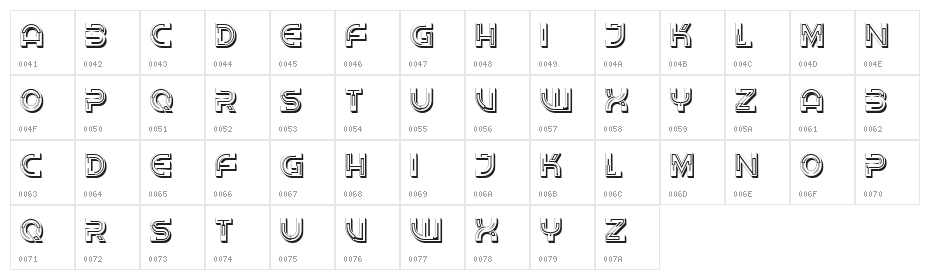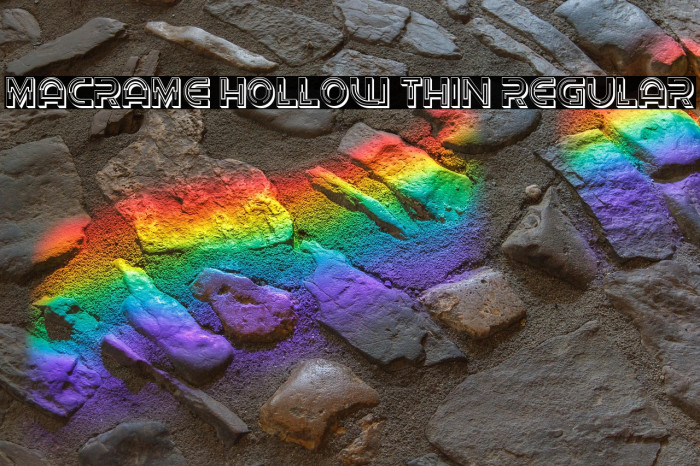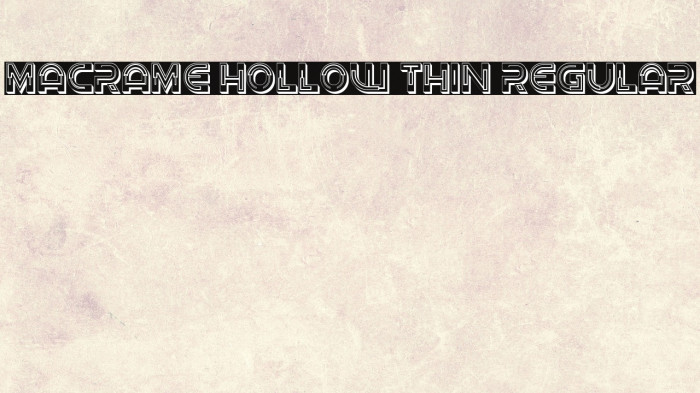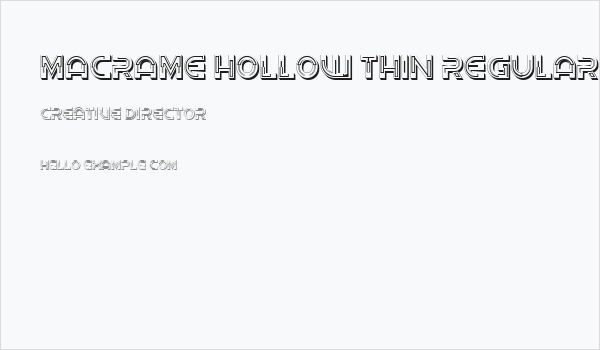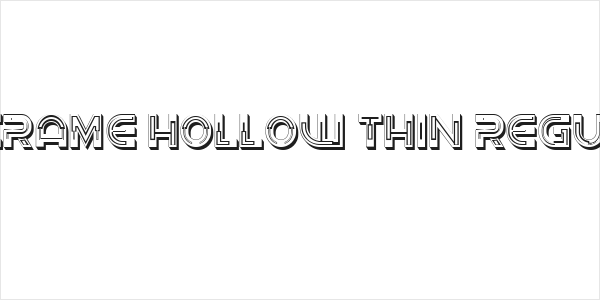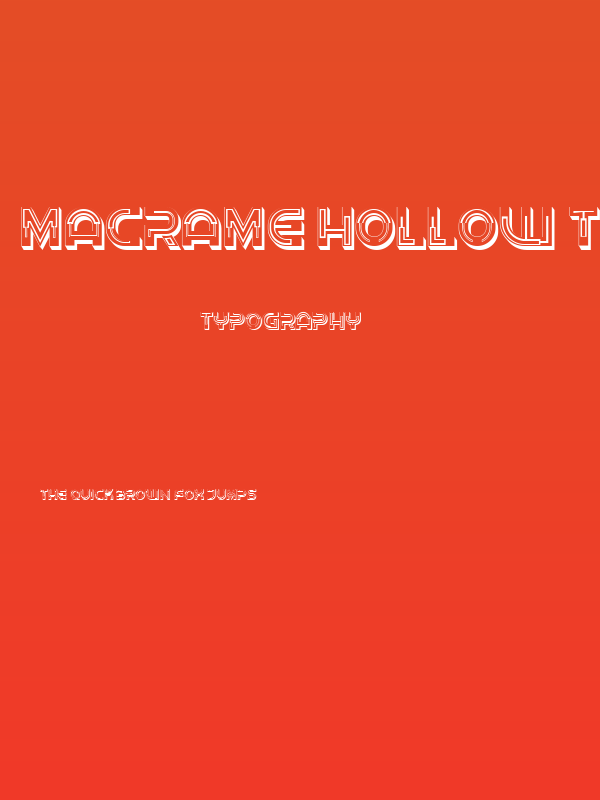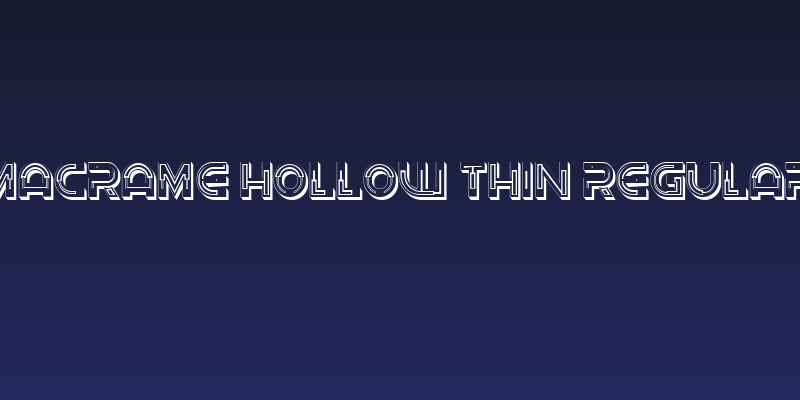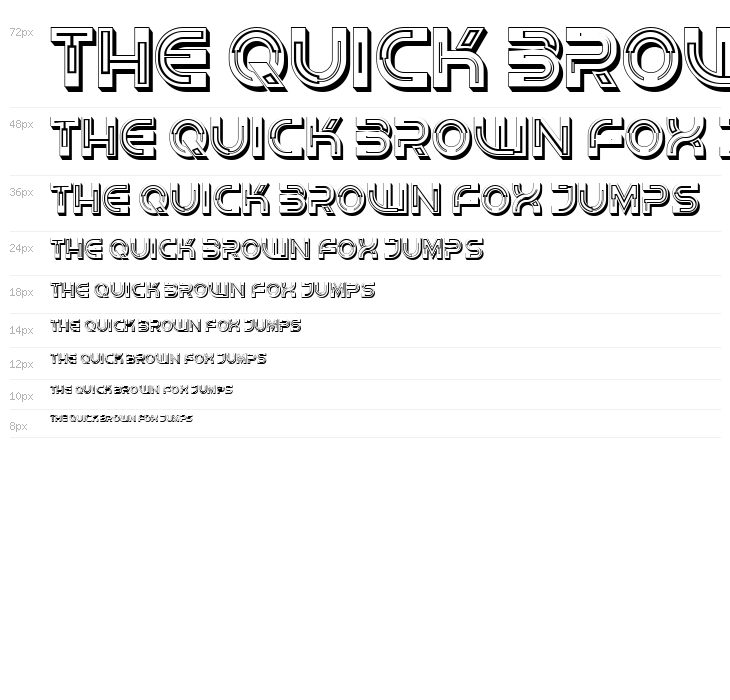
Macrame Hollow Thin Regular Font
Macrame Hollow Thin Regular Description
This font features a unique hollow design with a thin, geometric structure that creates a striking visual effect. The characters are composed of multiple parallel lines that form the outlines, giving it a layered and dimensional appearance. The style is modern and artistic, with a focus on symmetry and balance. The uppercase letters are bold and prominent, making them ideal for attention-grabbing headlines or titles. The overall aesthetic is both futuristic and retro, reminiscent of digital or neon signage.
| Proposed Projects | Ideal for digital art, posters, branding, and any project requiring a bold, modern typeface. |